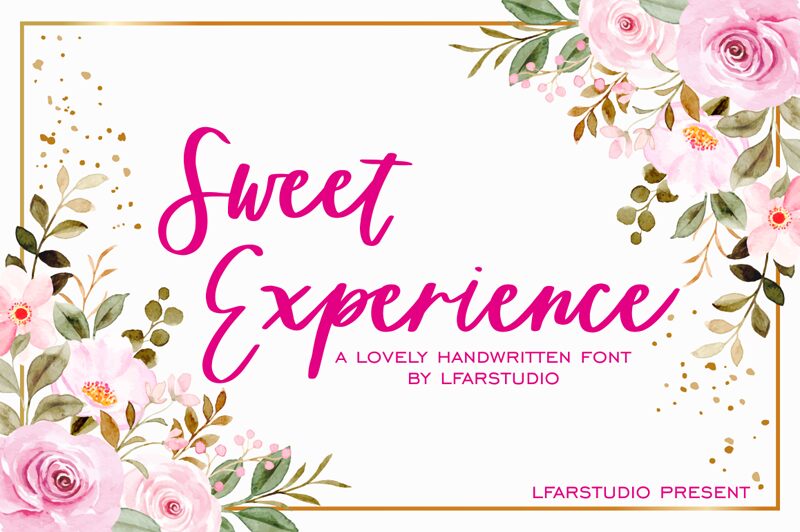
Sweet Experience is a charming semi-light font by Lalan Farlan. Its handwritten style gives off a warm and personal touch, making it perfect for a variety of projects. Use it for invitations, greeting cards, logos, or even social media graphics. Its delicate curves and playful demeanor make it an ideal choice for projects that require a touch of whimsy. Whether you're designing something fun and lighthearted or need to add some personality to your branding, Sweet Experience is the sweetest choice around.
Sweet Experience is a lovely handwritten font with a brush. it will add a romantic impression to any design project that you wish to create. This font is PUA which means you can access all of beautiful glyphs and ligatures with ease!
Sweet Exprience